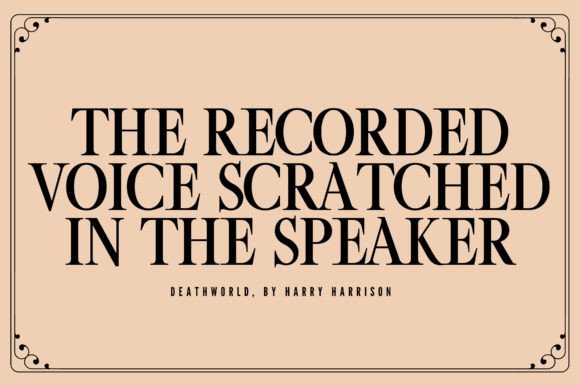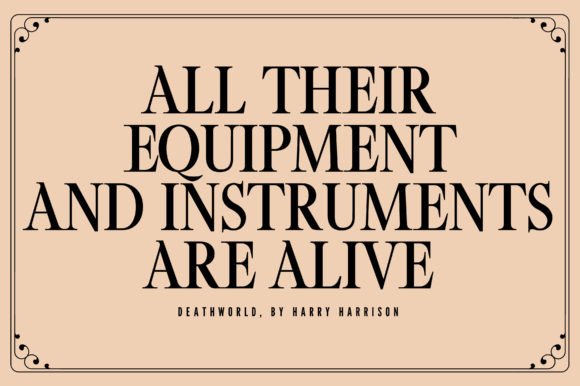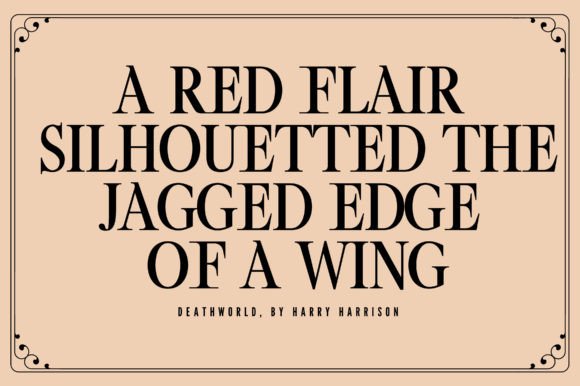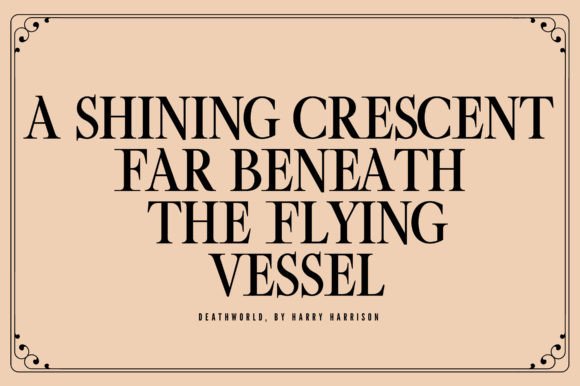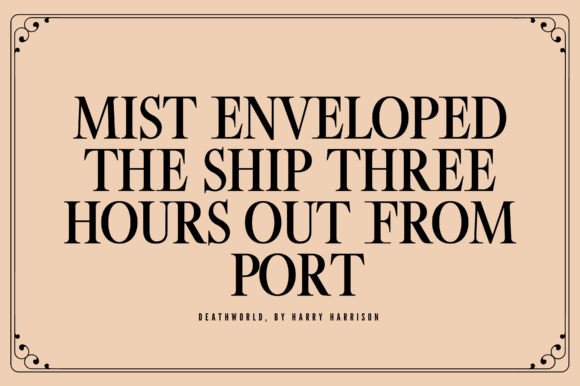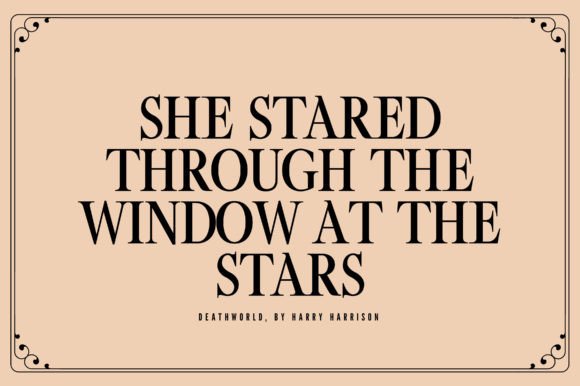
Introducing Ethier: The Ultimate Serif Font for Elegant Designs
In the world of typography, a good font can make all the difference in creating a lasting impression. For designers and crafters seeking a chic, elegant, and minimalist aesthetic, Ethier font is the perfect choice. With its clean lines, timeless appeal, and versatility, Ethier is the ideal font for any project that requires a touch of sophistication.
The Simplicity and Sophistication of Ethier
At first glance, Ethier may seem like a simple serif font, but don’t let its simplicity fool you. Ethier boasts over 520 glyphs, ensuring that it can meet all of your design needs. Whether you’re crafting a logo, designing a brochure, or creating a website, Ethier has the versatility to adapt to any project. Its clean lines and classic serif design make it perfect for body text, headings, and titles, while its range of glyphs and multi-lingual support make it suitable for a wide range of applications.
Multi-Lingual Support for Global Brands
In today’s global market, having a font that can handle multiple languages is essential. Ethier font is designed to support a wide range of languages, making it a great choice for global brands, multilingual websites, or any project that requires multi-language support. With Ethier, you can create a cohesive brand identity across different languages and cultures, ensuring that your message is conveyed consistently and effectively.
Attention to Detail: The Secret to Ethier’s Elegance
What really sets Ethier apart is its attention to detail. Each glyph has been carefully crafted to ensure that it flows seamlessly with the rest of the font, resulting in a harmonious and visually pleasing design. The result is a font that exudes a sense of elegance and sophistication, perfect for designers and crafters who want to create high-end designs that stand out from the crowd.
Versatility and Adaptability
Ethier’s versatility and adaptability make it an excellent choice for a wide range of design projects. Whether you’re creating a logo, designing a brochure, or building a website, Ethier can handle it all. Its classic serif design ensures that it will never go out of style, while its range of glyphs and multi-lingual support make it suitable for a wide range of applications.
Why Choose Ethier Font?
So why choose Ethier font for your next design project? Here are just a few reasons:
- Elegant and sophisticated design: Ethier’s clean lines and classic serif design make it perfect for creating high-end designs that exude elegance and sophistication.
- Versatility and adaptability: With over 520 glyphs and multi-lingual support, Ethier can handle a wide range of design projects and applications.
- Attention to detail: Each glyph has been carefully crafted to ensure that it flows seamlessly with the rest of the font, resulting in a harmonious and visually pleasing design.
- Timeless appeal: Ethier’s classic serif design ensures that it will never go out of style, making it a great investment for designers and crafters.
In conclusion, Ethier font is the perfect choice for designers and crafters seeking a chic, elegant, and minimalist aesthetic. With its clean lines, timeless appeal, and versatility, Ethier is the ideal font for any project that requires a touch of sophistication. Its attention to detail, multi-lingual support, and range of glyphs make it suitable for a wide range of applications, from logos and brochures to websites and global brands. So why settle for an ordinary font when you can have an extraordinary one? Choose Ethier font for your next design project and experience the difference for yourself.